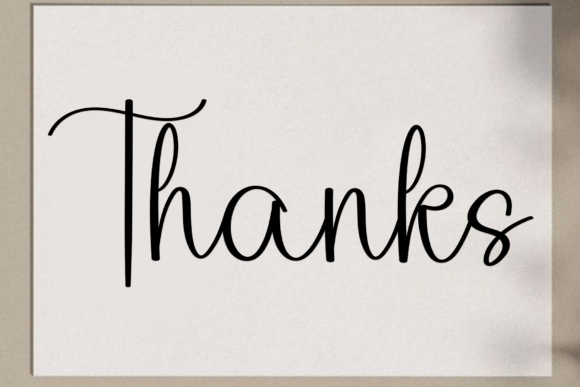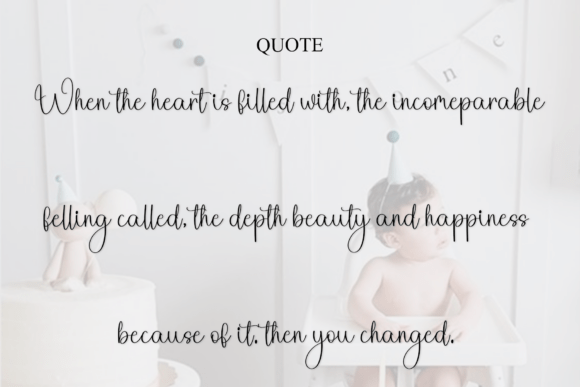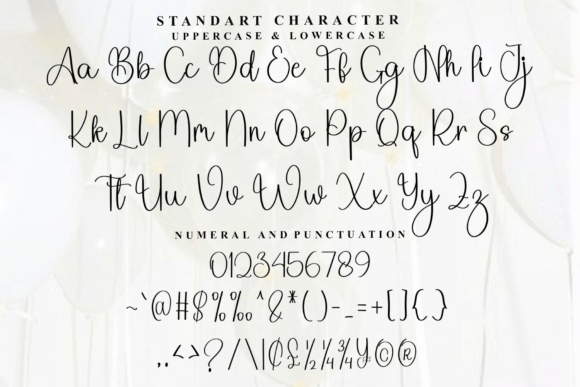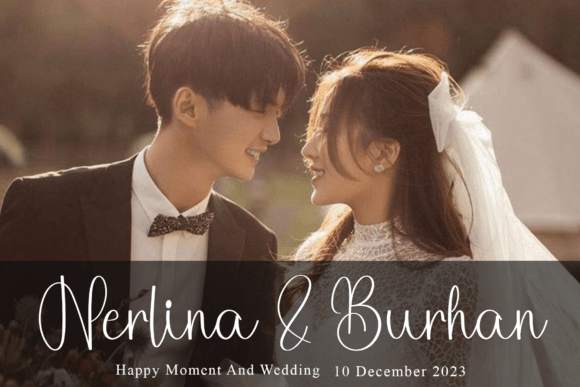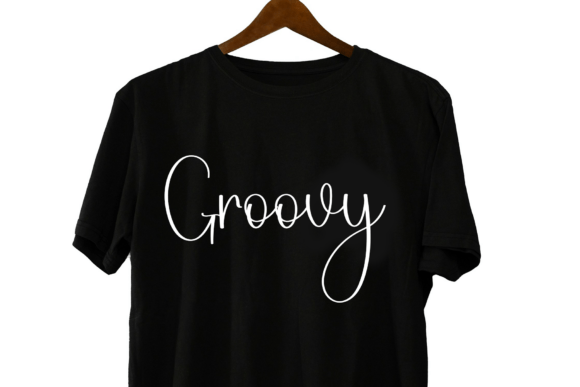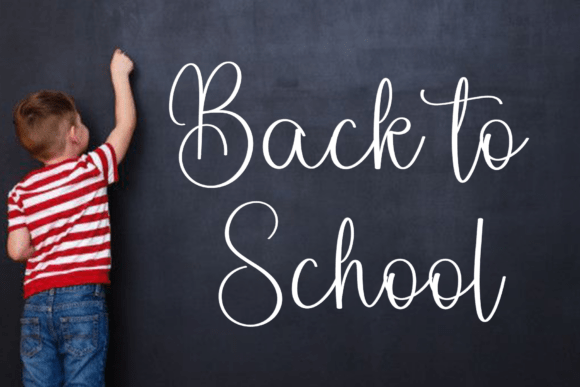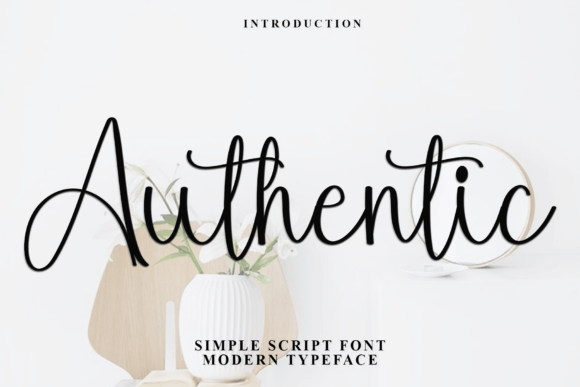
The Power of Authentic Font: Elevate Your Designs with a Unique and Versatile Typeface
In the world of design, typography plays a crucial role in conveying a message, expressing creativity, and capturing the audience’s attention. Among the numerous fonts available, Authentic Font stands out with its distinctive strokes, soft texture, and eye-catching appeal. Designed with a unique touch, this beautiful font is perfect for designers, crafters, and creative professionals looking to add a special character to their projects.
What Makes Authentic Font Special?
Authentic Font boasts a range of characteristics that make it an ideal choice for various design applications. Its soft and natural texture gives it a friendly and approachable feel, making it perfect for projects that require a personal touch. The font’s unique strokes and distinctive character set ensure that your designs stand out from the crowd, adding a touch of elegance and sophistication.
One of the key benefits of Authentic Font is its versatility. With a wide range of characters, this font is suitable for various design projects, including crafts, creative works, and other artistic endeavors. Whether you’re working on a logo, brochure, or website, Authentic Font can help you create stunning visual content that resonates with your audience.
From graphic design and branding to crafting and digital art, Authentic Font is an excellent choice for anyone looking to add a personal touch to their work. Its natural font style makes it perfect for creating visually appealing products, such as posters, flyers, and social media graphics.
Enhance Your Designs with Authentic Font
With Authentic Font, you can elevate your designs and make them more engaging for your audience. The font’s unique character and soft texture ensure that your visual content stands out, grabbing the attention of potential customers, readers, or viewers.
Why Designers and Crafters Love Authentic Font
Designers and crafters love Authentic Font for its unique character, versatility, and ease of use. Here are some reasons why:
• Unique Character: Authentic Font’s distinctive strokes and soft texture give it a special character that sets it apart from other fonts.
• Versatility: With a wide range of characters, this font is suitable for various design projects, including crafts, creative works, and other artistic endeavors.
• Ease of Use: This font is easy to use, even for those who are new to design or crafting.
Authentic Font is a beautiful and eye-catching typeface that can elevate your designs and add a personal touch to your creative projects. With its unique character, versatility, and compatibility, this font is perfect for designers, crafters, and creative professionals looking to make a lasting impression.
Whether you’re working on a graphic design project, crafting a handmade product, or creating digital art, Authentic Font is an excellent choice. Its natural font style and soft texture ensure that your visual content stands out, engaging your audience and helping you achieve your goals.